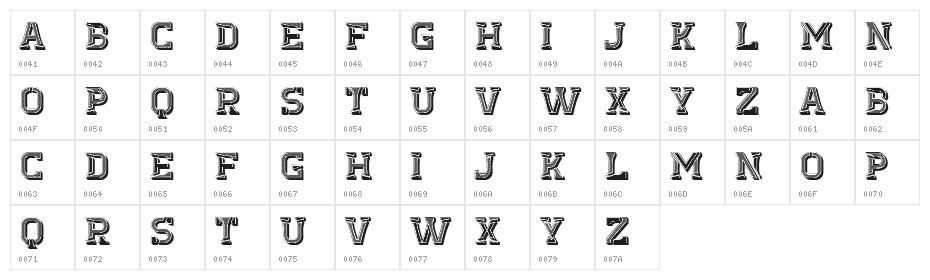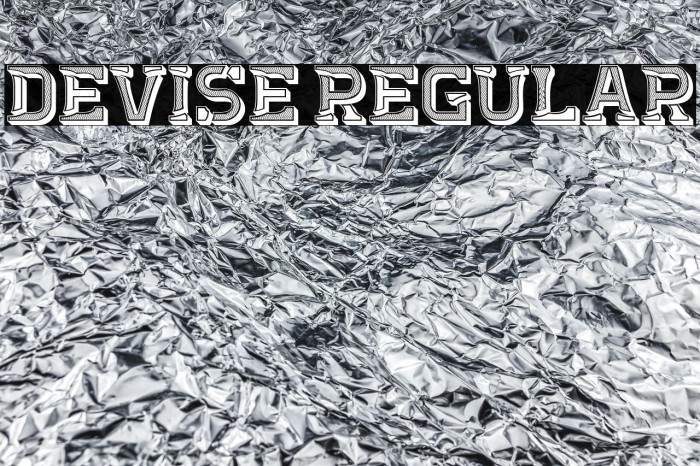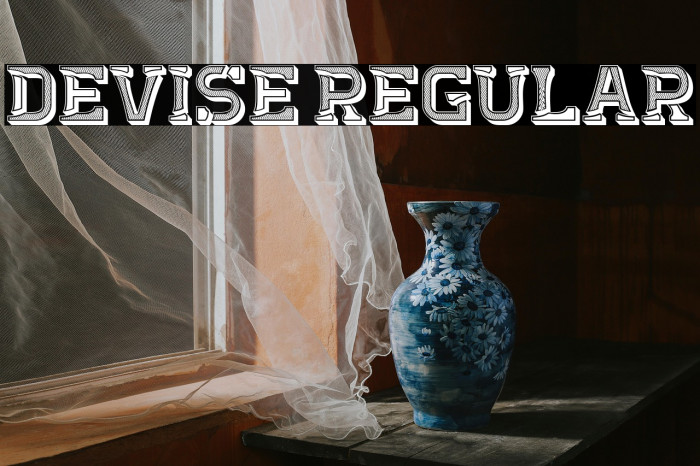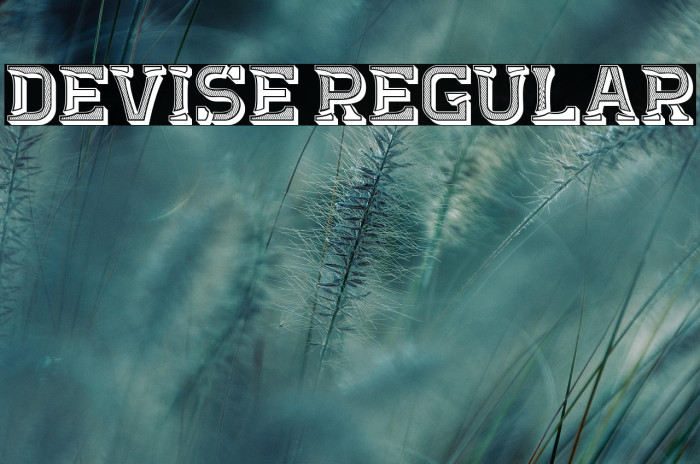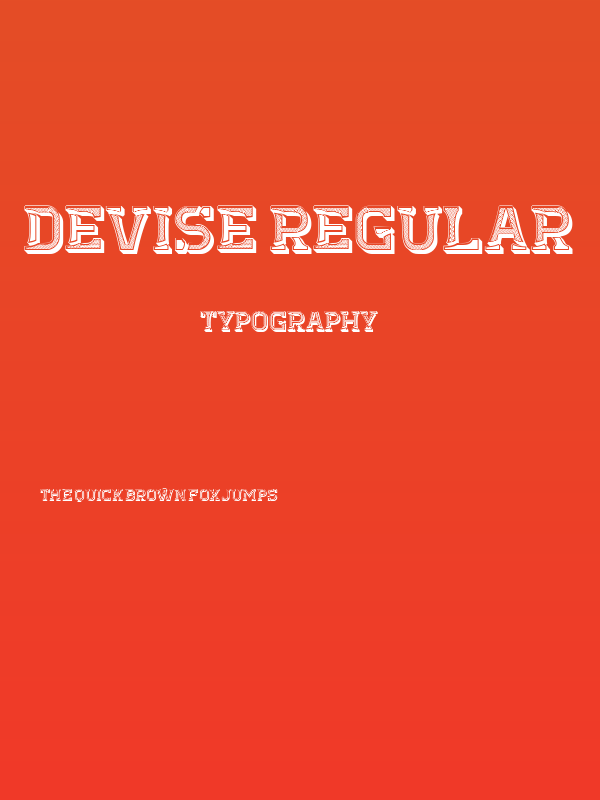
Devise Regular Font
Devise Regular Description
This font features a bold and decorative style with a strong presence. Each character is outlined with a thick border, creating a shadow effect that adds depth and dimension. The interior of the letters is filled with intricate patterns, giving it a textured appearance. The overall design is reminiscent of vintage signage, with a modern twist that makes it suitable for contemporary use. The font's unique style makes it stand out, making it ideal for projects that require a bold statement.
| Overall Style | Vintage, Decorative |
| Proposed Projects | Ideal for posters, branding, headlines, and any design that requires a strong visual impact. |